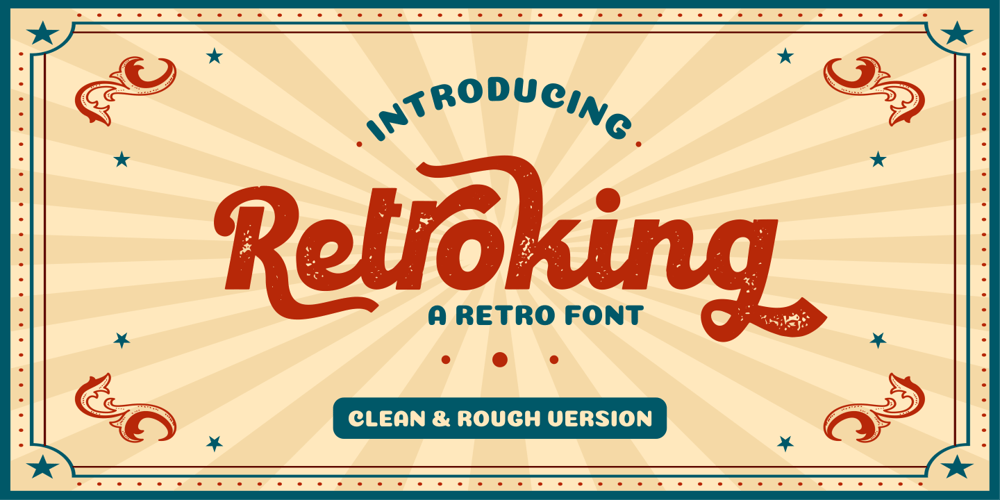
Retroking
Retroking font
Retroking Font Family was designed by Putra Novembria Candra Kusuma and published by Putracetol. Retroking contains 2 styles and family package options. Retroking is a retro style font and comes with regular and rough versions. Retroking is perfect for vintage and retro design, badges, logos, t-shirt, posters, branding, packaging, signage, book covers and so much more!